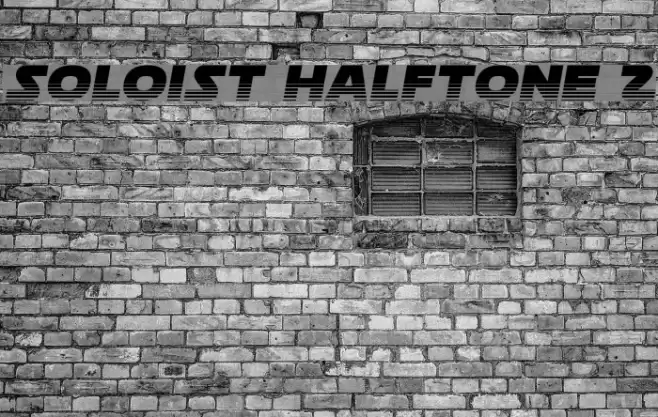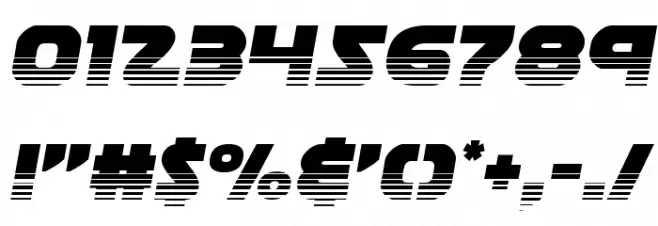
Soloist Halftone 2 Font
Soloist Halftone 2 Description
This font features a bold and dynamic style with a distinctive halftone effect that gives it a modern and edgy appearance. The characters are designed with a strong emphasis on horizontal lines, creating a sense of movement and speed. The uppercase letters are particularly striking, with their thick strokes and unique patterning that adds depth and texture. The numbers and special characters maintain this cohesive look, making it suitable for projects that require a bold and attention-grabbing typeface. The font's design is ideal for use in digital media, posters, and branding materials where a contemporary and impactful aesthetic is desired.
A bold, modern font with a halftone effect and strong horizontal lines from Uncategorized fonts.
- Proposed Projects: Ideal for digital media, posters, branding, and any project needing a bold, modern look.